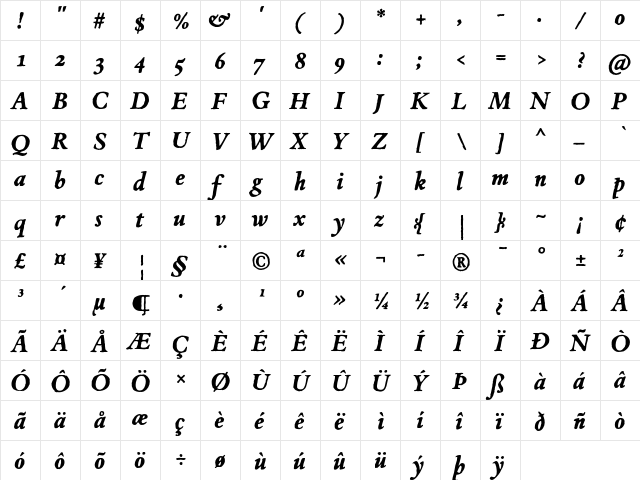
JMH Espinosa Bold Italic
Design Context for JMH Espinosa Typeface
JMH Espinosa takes a measured approach to typography — its balanced proportions and neutral character make it a reliable workhorse for both digital and print work. Its italic angle brings a sense of urgency and motion to the letterforms. Its bold stroke weight gives it real presence on the page.
Pro Tip: Use JMH Espinosa for emphasis, pull quotes, and subheadings where its slanted energy can add rhythm to the layout.